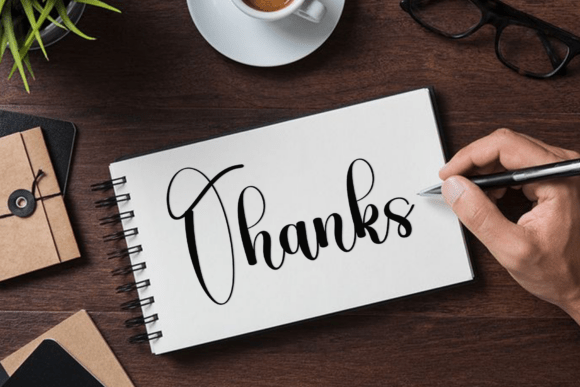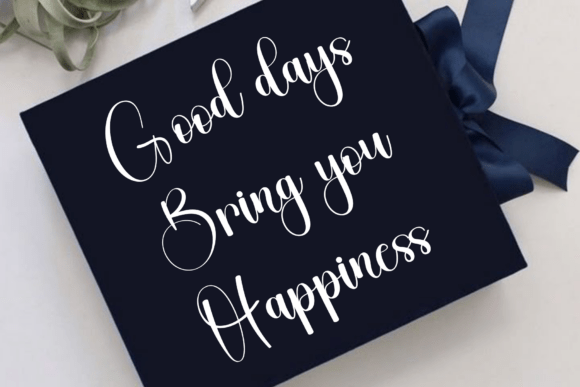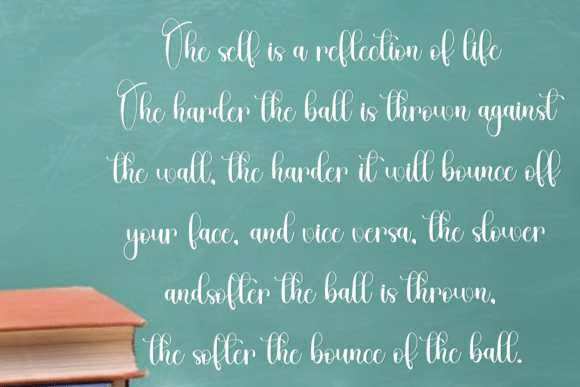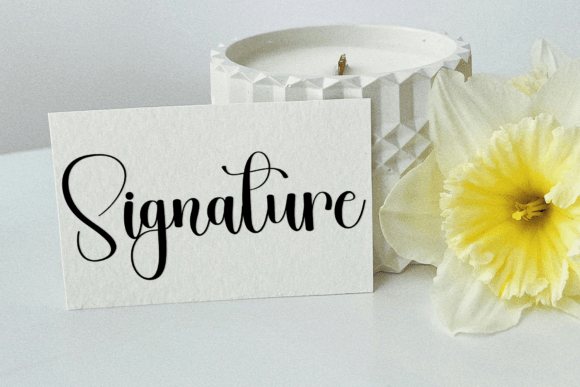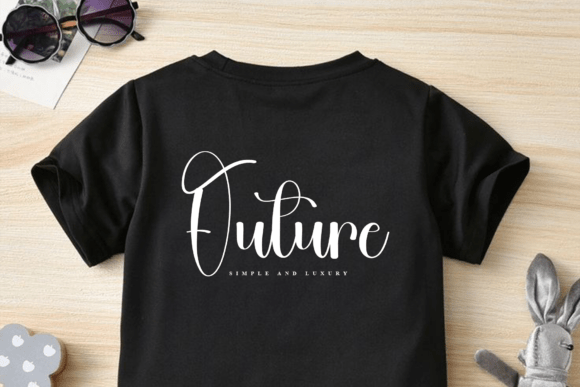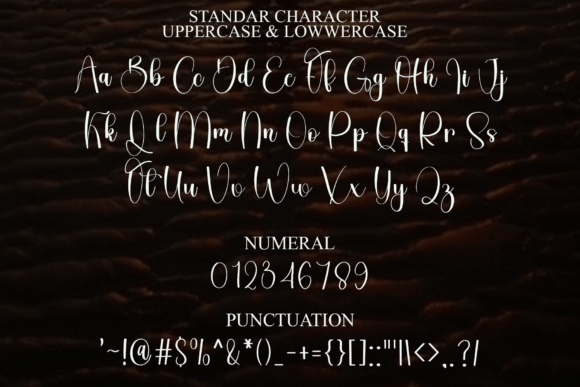
Unleash Your Creativity with the Perfect Font
There’s something magical about sitting down with a pencil and paper, watching your ideas come to life as you bring them into being. It’s that same sense of joy and freedom that the Drawing Handmade Font embodies, a casual and creative typeface that exudes warmth and friendliness. With its round, playful strokes, this font creates a relaxed and approachable feel, perfect for personal projects, invitations, and social media graphics.
Whether you’re a seasoned designer or just starting out, the Drawing Handmade Font is a valuable addition to your toolkit. Its charming, hand-drawn aesthetic adds a fun and unique touch to any design, making it stand out from the crowd. Plus, with standard PUA Encoded glyphs, you can use it in a variety of applications, from Adobe Photoshop to Canva and beyond.
Drawing Handmade Font Key Features
- Unique Characteristics: Hand-drawn design with a natural, imperfect feel; includes 200+ glyphs and 50+ language support
Designing with “Drawing Handmade Font”
Overall, I found “Drawing Handmade Font” to be a charming addition to my design toolkit. It works well ✨ in projects where a more organic, handwritten feel is desired. The font’s unique, hand-drawn aesthetic lends itself well to titles, headings, and other text elements where emphasis is needed.
The font’s flexibility and wide range of weights and styles make it easy to use across various design contexts. I particularly appreciate its ability to add a touch of personality to digital interfaces and print materials alike.
Here are some specific strengths of the font:
- Unique, hand-drawn aesthetic that adds a touch of personality to designs
- Wide range of weights and styles for flexible use
- Works well in both digital and print contexts
However, I did encounter some limitations with the font:
- ⚠️ Limited legibility at smaller font sizes
- ⚠️ Can be challenging to read in certain font combinations
Despite these limitations, I find “Drawing Handmade Font” to be a valuable addition to my design library. Its unique aesthetic and flexibility make it a great choice for designers looking to add a touch of personality to their projects.
Handmade fonts are perfect for:
- Creating unique and eye-catching branding
- Adding a personal touch to invitations and stationery
- Designing custom typography for packaging and labels
- Creating whimsical and playful designs for children’s products